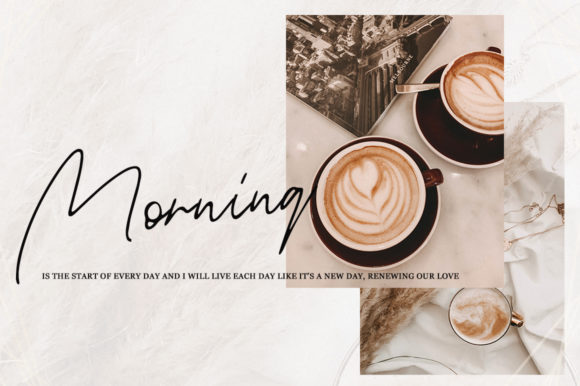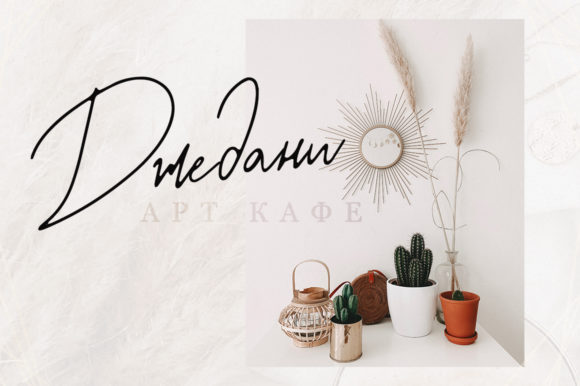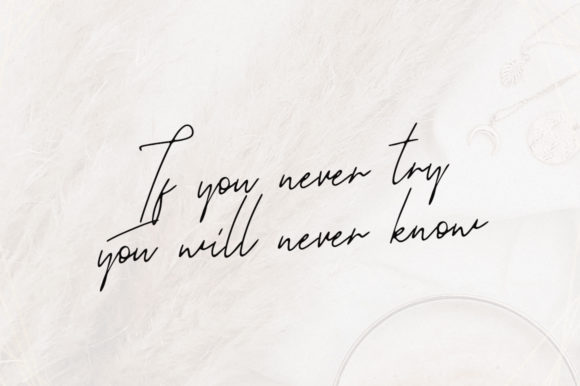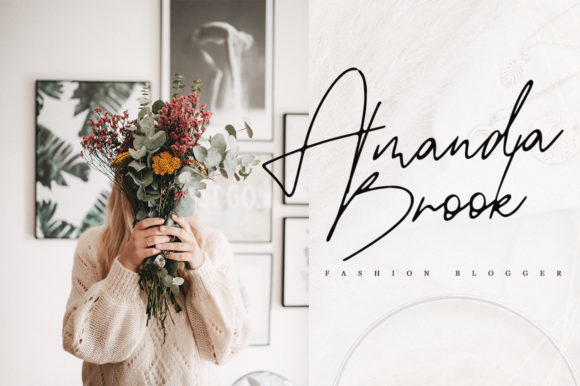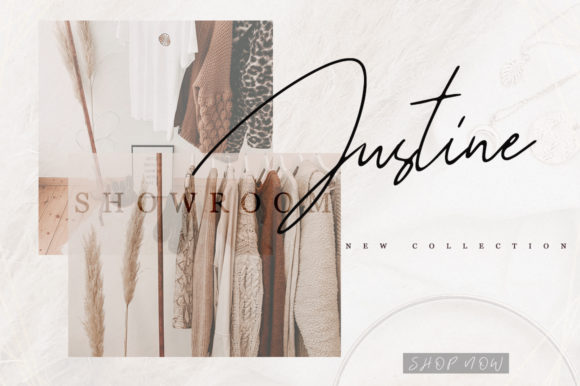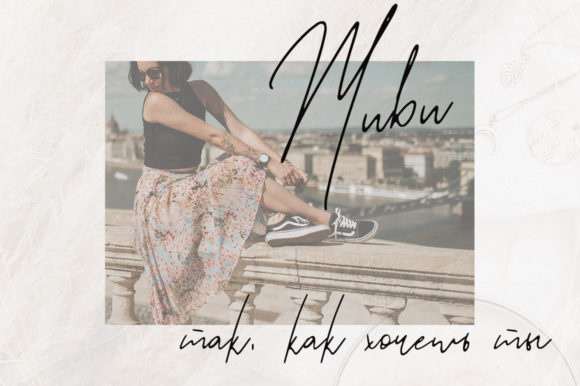
Introduction to Jar Binks Font
As a designer, there’s nothing quite like the thrill of finding the perfect font to elevate your creative project. It’s that moment when everything comes together – the words flow effortlessly, the message is conveyed with clarity, and the design pops with style. For many of us, that moment is made possible by the discovery of a high-quality font that speaks to our aesthetic.
One such font that has captured the hearts of designers worldwide is the Jar Binks Font. With its beautiful handwritten curves and bold feel, this modern simplicity is sure to inspire. Whether you’re working on a free download project or need a design resource for a commercial client, Jar Binks Font is a valuable addition to any designer’s toolkit.
Key Features of Jar Binks Font
- Unique, hand-drawn design inspired by the beloved character Jar Binks from the Star Wars franchise, perfect for creative projects.
- Transparent background allows for seamless integration into various design elements, from logos to graphics.
- Designed to be versatile and adaptable, making it suitable for a wide range of creative projects, from typography to graphics.
- Exclusive design that sets your project apart from others, thanks to its distinctive and quirky style.
Honest Review: Jar Binks Font
I recently stumbled upon the Jar Binks Font, and I must say it’s a fantastic addition to any designer’s toolkit. This free download is perfect for creative projects that require a touch of whimsy and personality.
One of the standout features of this font is its transparent background, making it super easy to layer and combine with other design elements. The high-quality design ensures that your project will look polished and professional.
- ✨ Unique and quirky design that adds character to any project
- ✨ Easy to use and customize with a transparent background
- ⚠️ Limited font styles and weights, which may not be suitable for complex typography projects
- ⚠️ Not ideal for projects that require a formal or traditional font
Overall, the Jar Binks Font is a fun and versatile design resource that’s perfect for creative projects. While it may have some limitations, its unique design and ease of use make it a great addition to any designer’s toolkit.
Tips for Getting the Most Out of Jar Binks Font
To get the most out of the Jar Binks Font, experiment with different font sizes, colors, and styles. The font’s transparent background also allows for easy customization and layering.
The Jar Binks Font is perfect for creative projects that require a unique and eye-catching design. Some common use cases include social media graphics, posters, and business cards. Its high quality and versatility make it a valuable design resource for designers and non-designers alike.